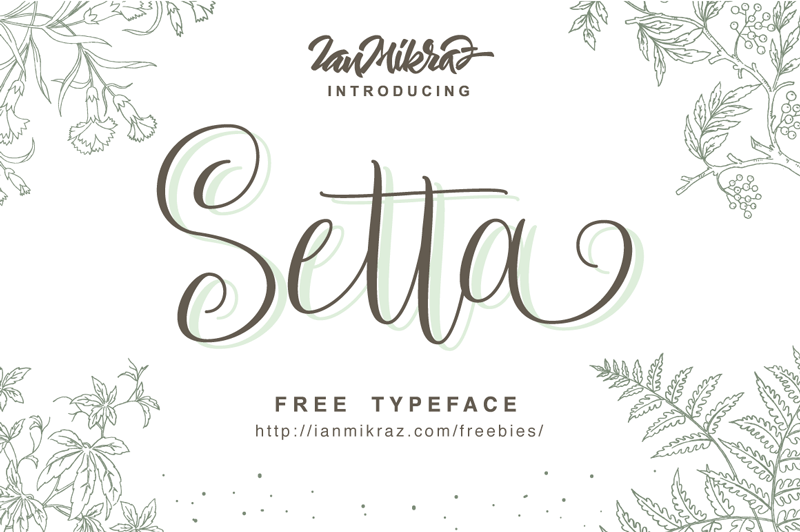
Setta Script Free Typeface is a new modern calligraphy Typeface Fonts collection from Ianmikraz studio, combines from copperplate to contemporary typeface, classic, beauty and elegant touch. Setta Script Free Typeface features 244 glyphs and 69 alternate character contain with opentype features. Stylistic Alternates, Standart Ligature and more.You can access all those alternate characters by using OpenType savvy programs such as Adobe Illustrator, Adobe InDesign and CorelDraw X6-X7. For other programs that doesn’t support OpenType Features or Glyphs Panel such as Photoshop, you can use Character Map in Windows to access the alternate characters :) **Thanks to download my fonts** More free fonts you can visit my site at http://ianmikraz.com/freebies/ Have fun !! Thanks Ian Mikraz |